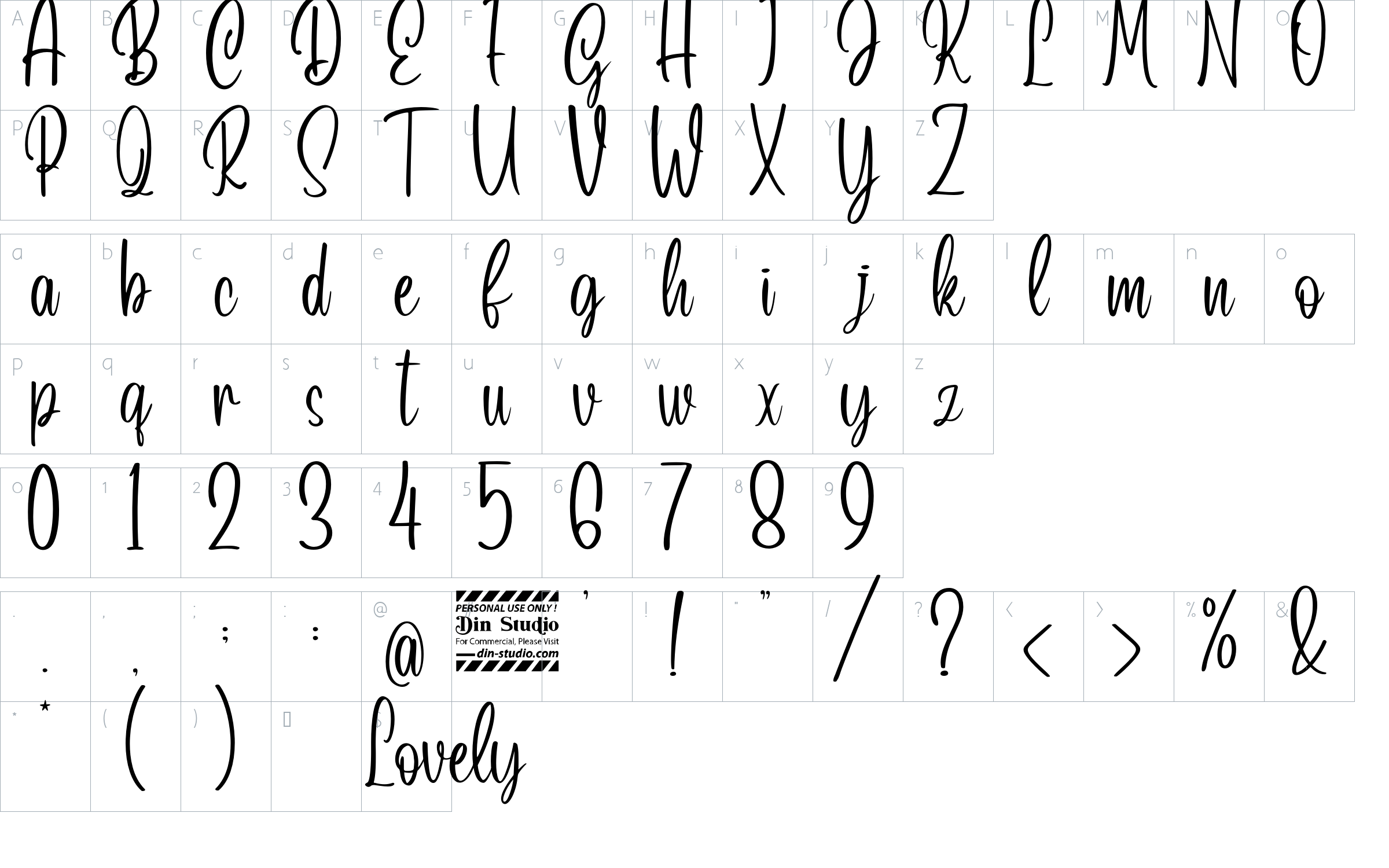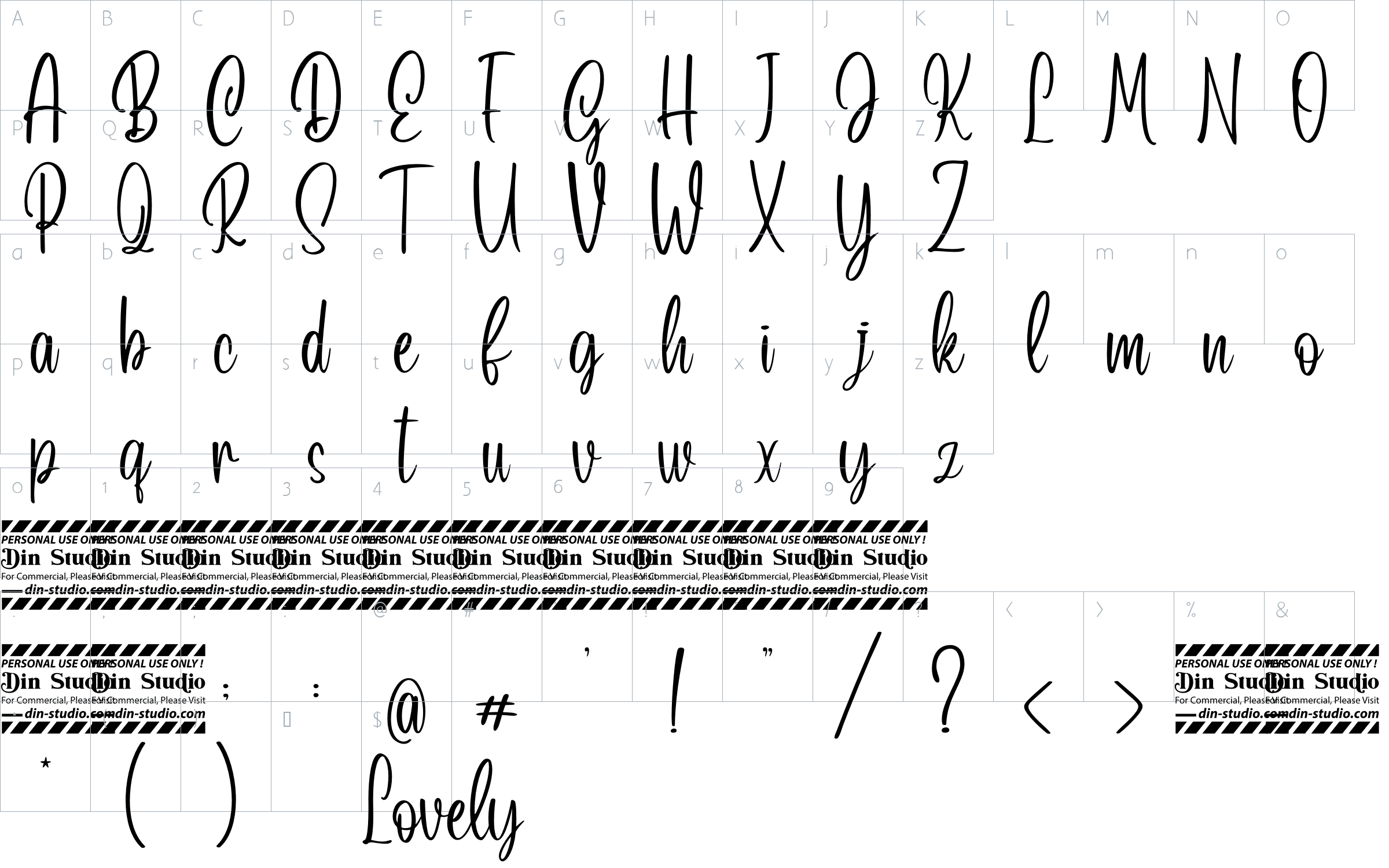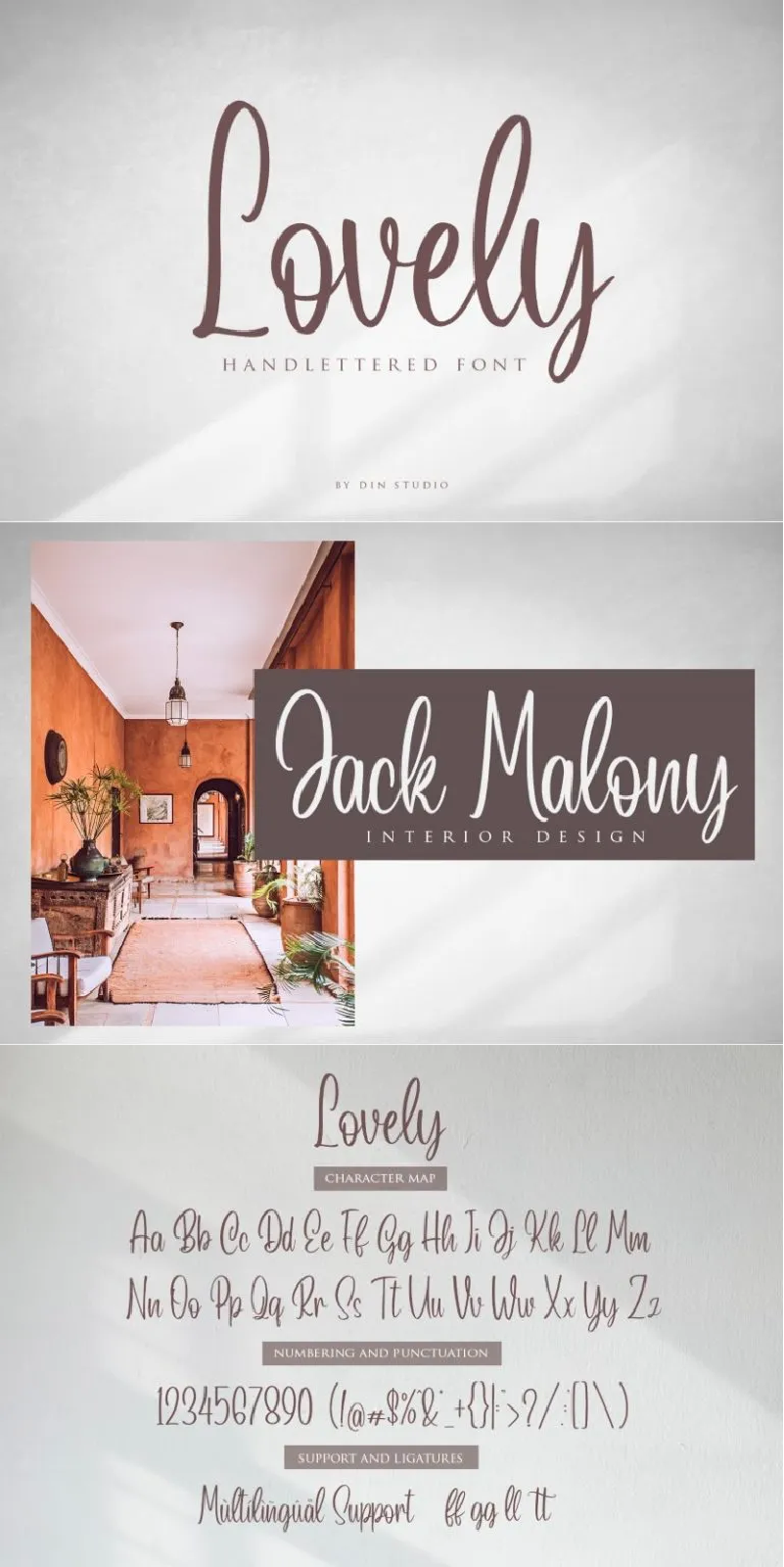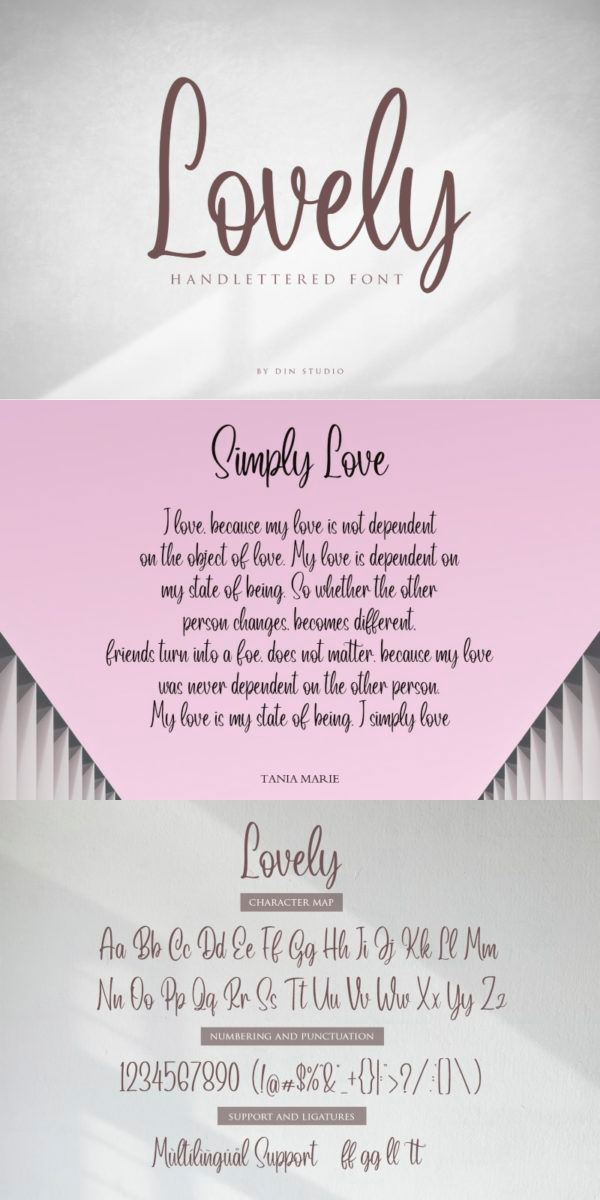
Lovely Font
About Lovely
Lovely Script is the right answer! Lovely Script is suitable for many project designs especially for branding projects, weddings, and letterings. With the combination of elegant and casual style, this font contains a full set of lowercase and uppercase letters, numerals, punctuations, and ligatures.